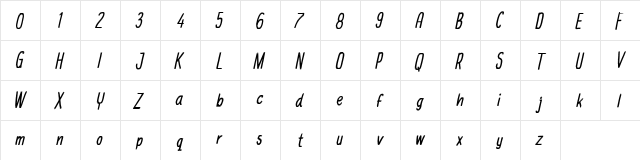
MICHAEL Jackfruit Font Preview
| Foundry | Cundrawan |
| Designer | Cundrawan |
Design Context for MICHAEL Jackfruit Typeface
MICHAEL Jackfruit is a composed and adaptable typeface that performs quietly and consistently across a wide range of design contexts.